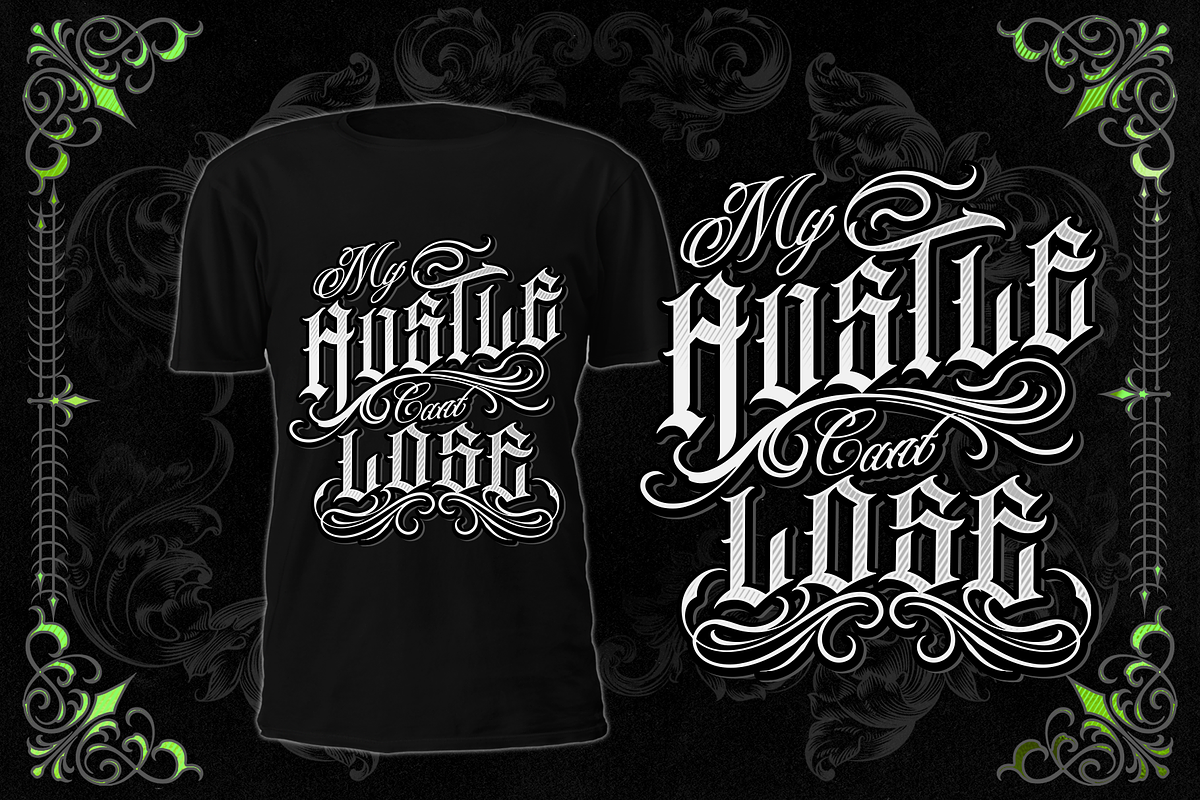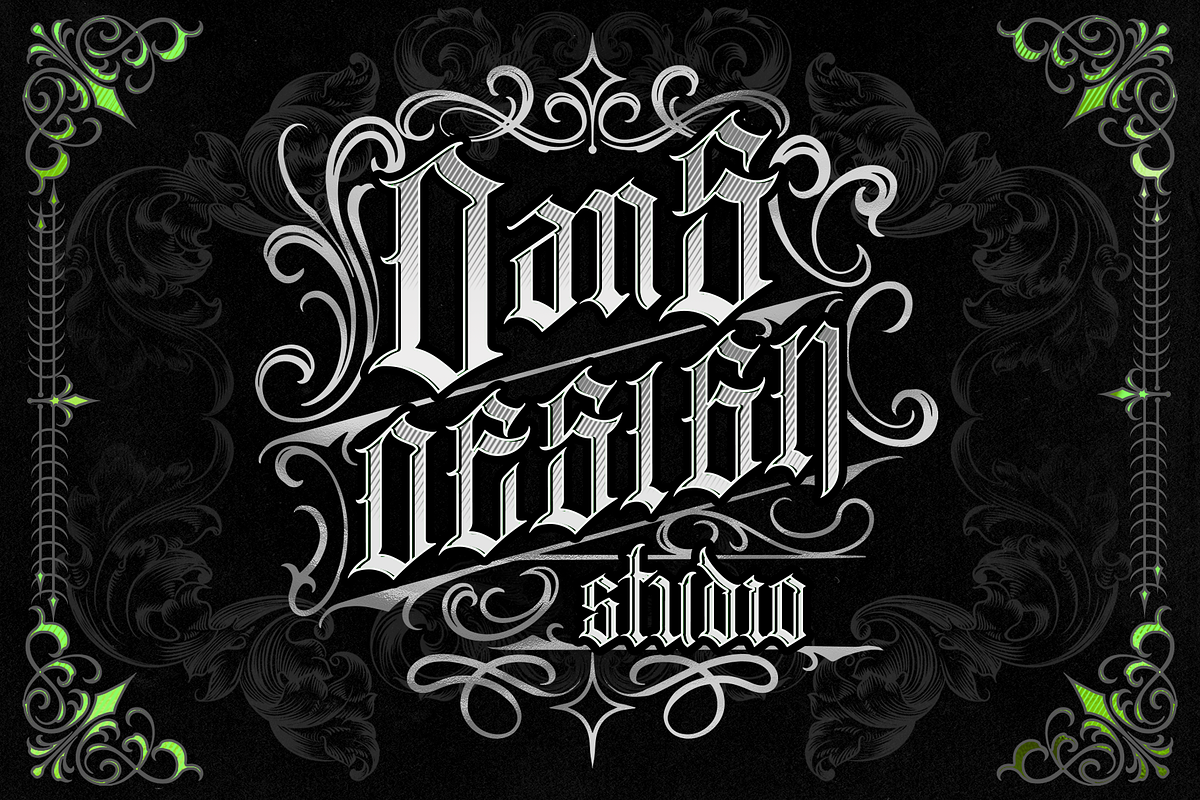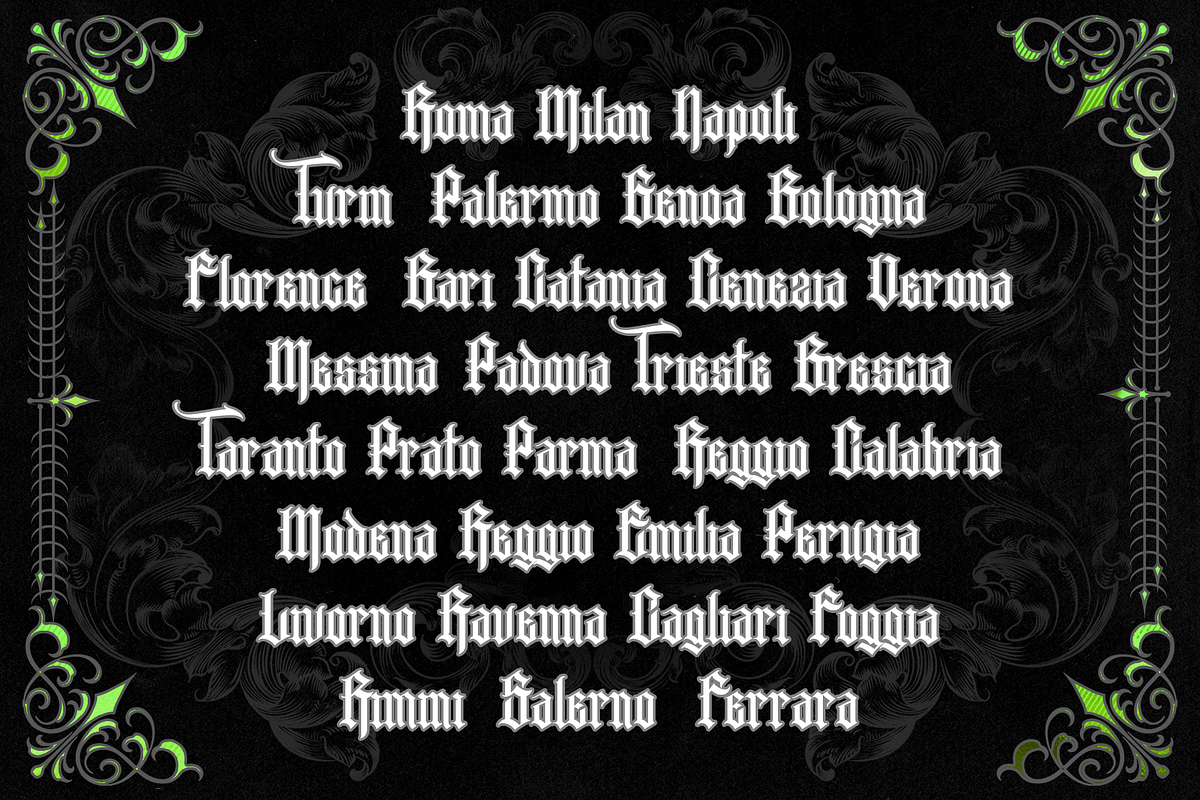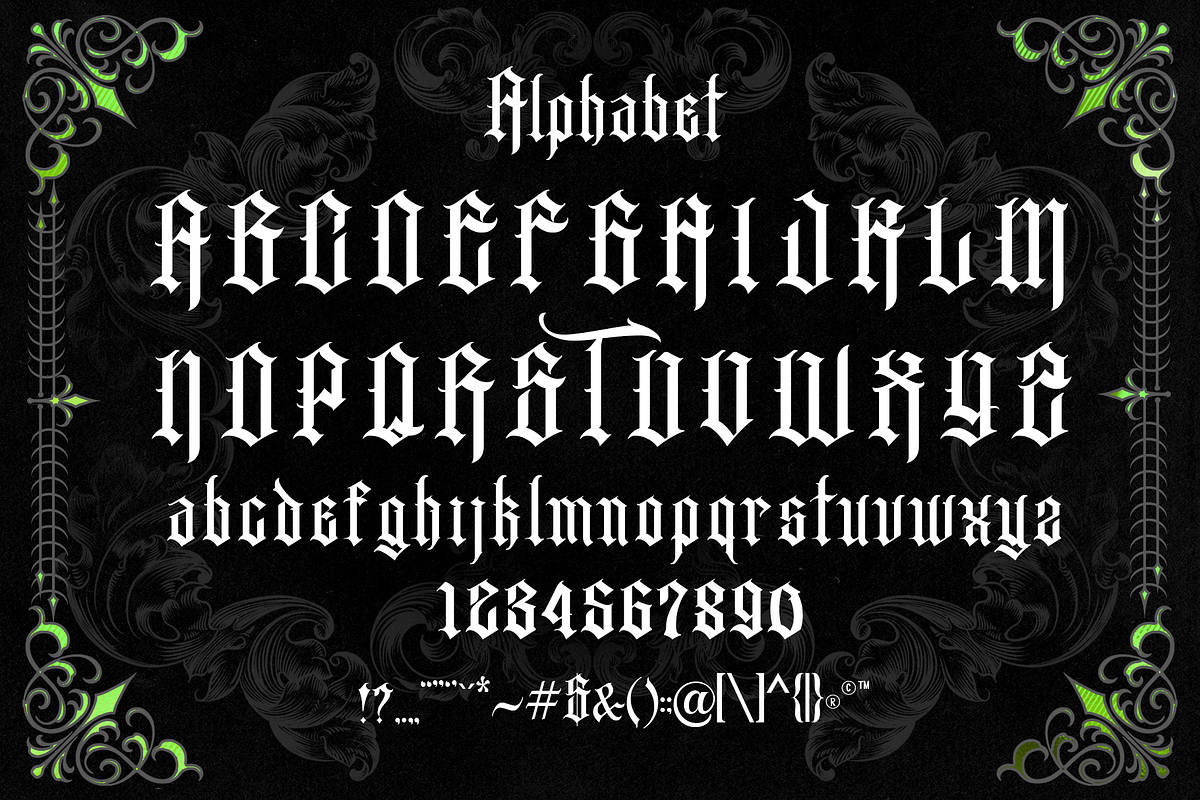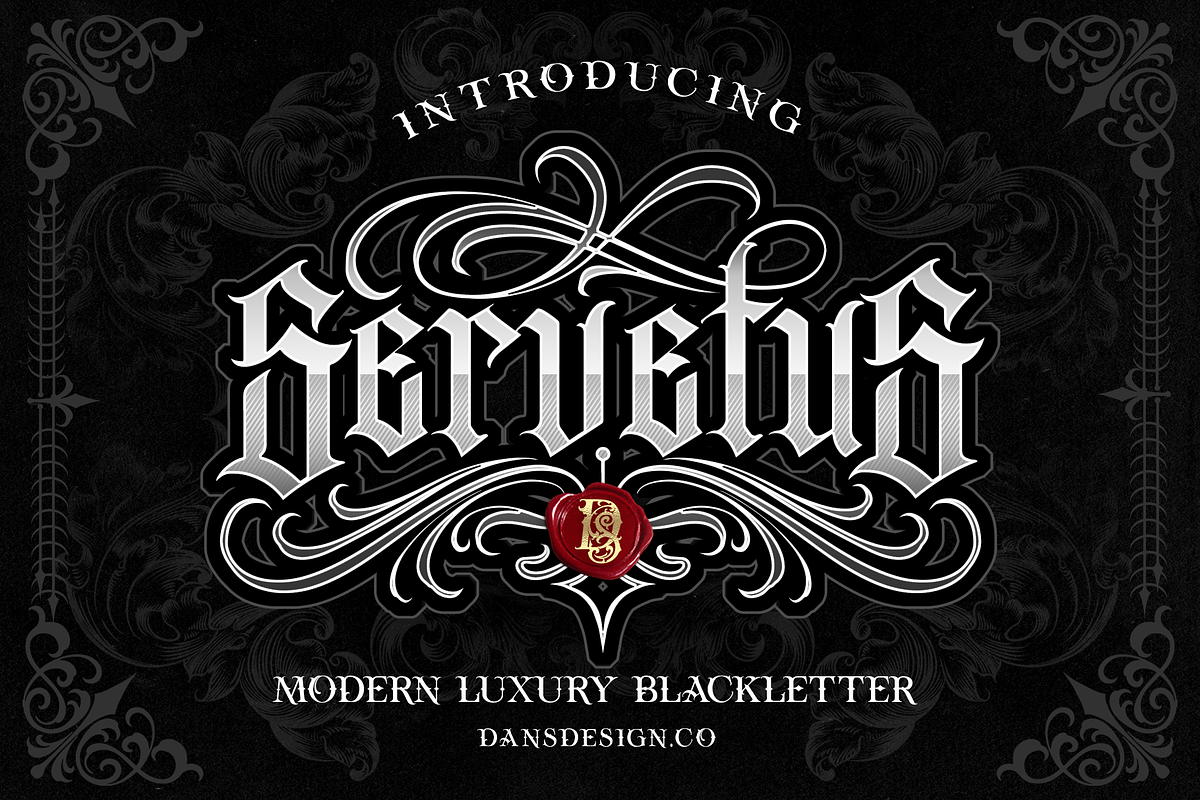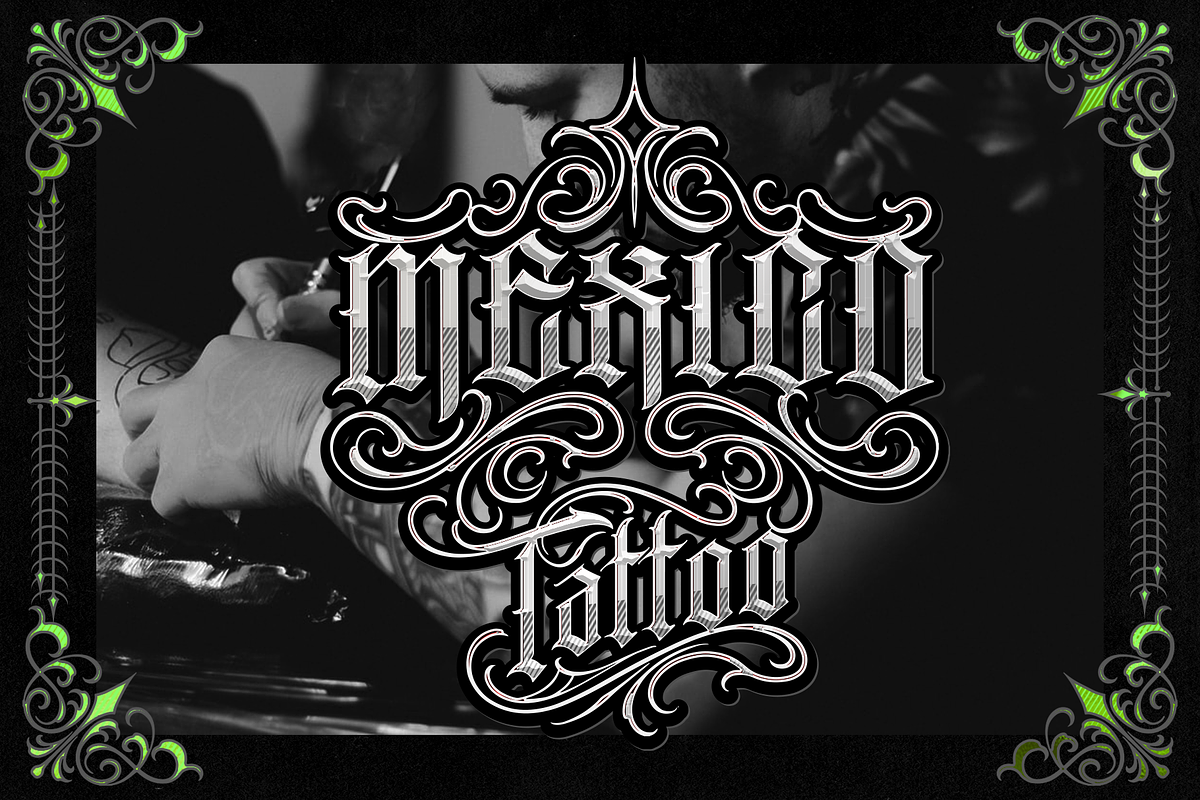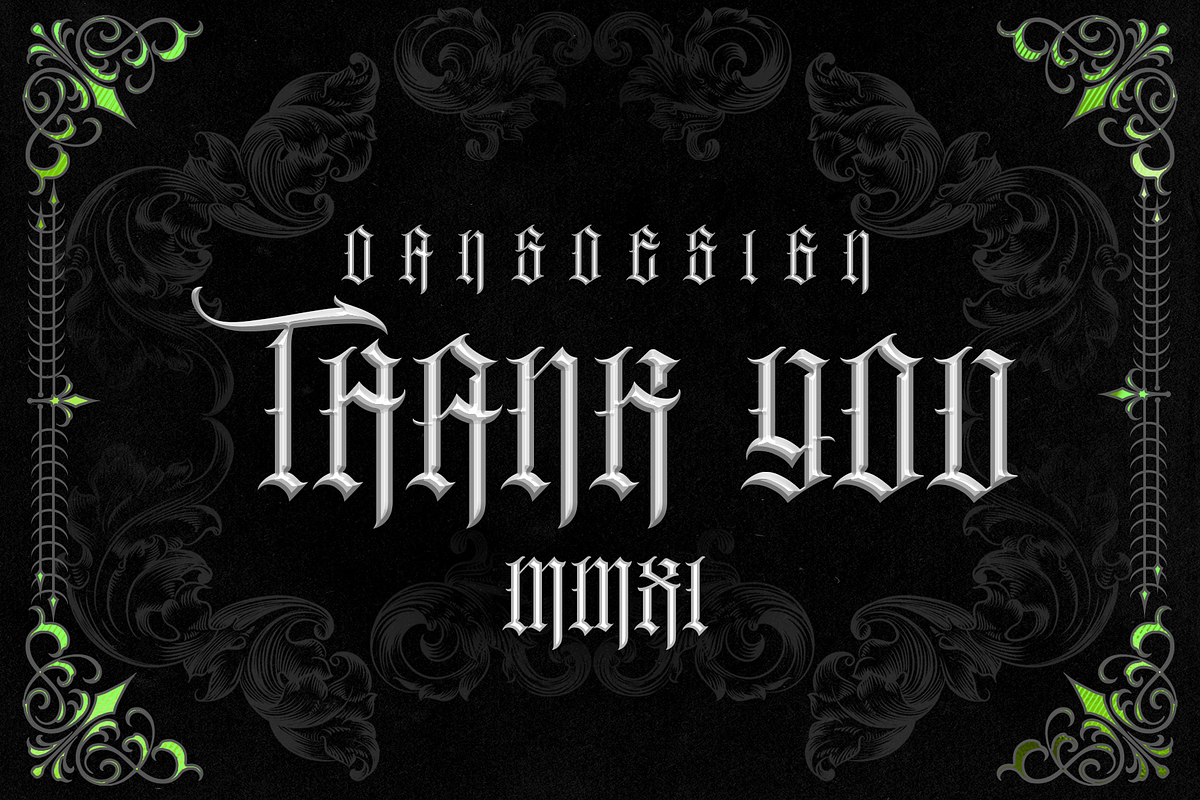
Dansdesign Proudly present our new product SERVETUS This font is made with references to various Blackletters that I combine and design with my style.
- SERVETUS are great and usefull for product logo, poster title, headline, packaging, badge, card logo, clothing brand logo, Vintage design, tattoo design and much more